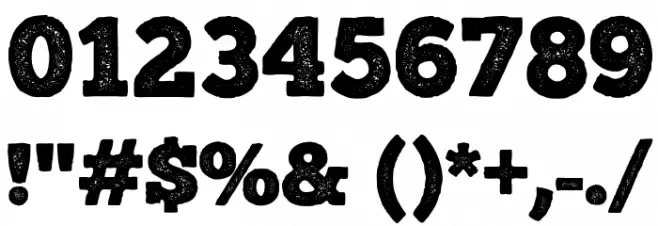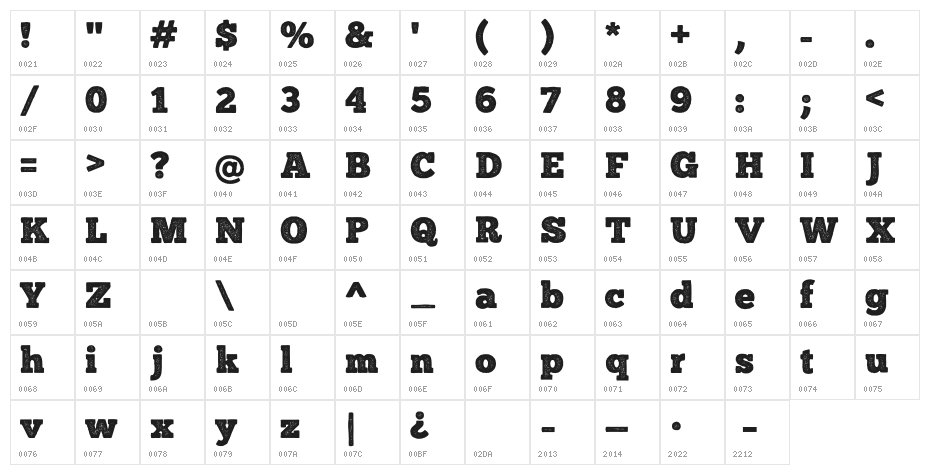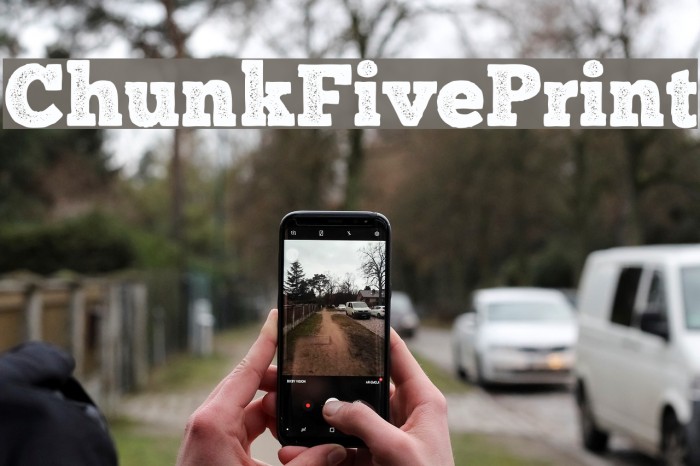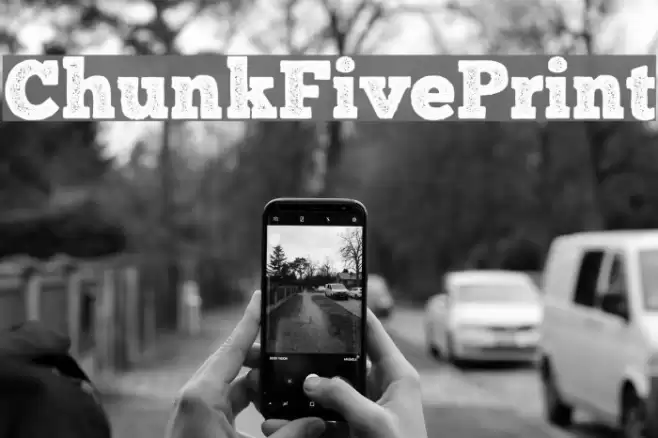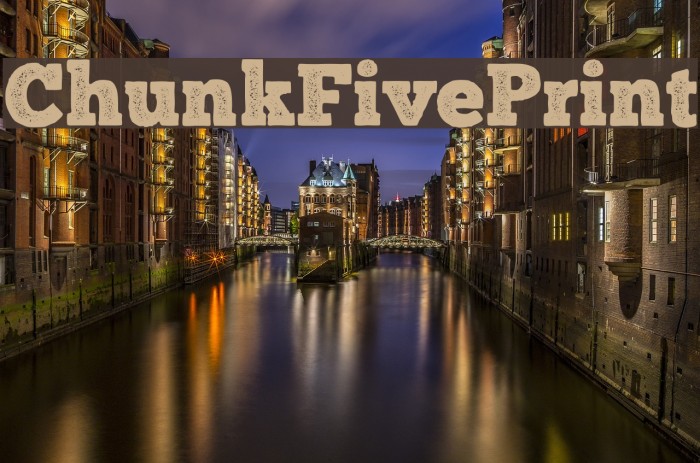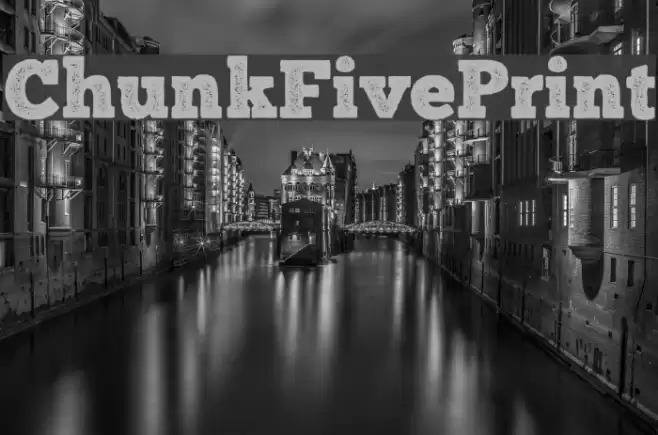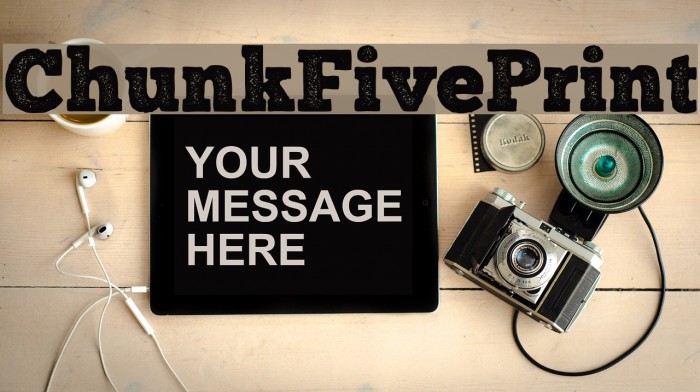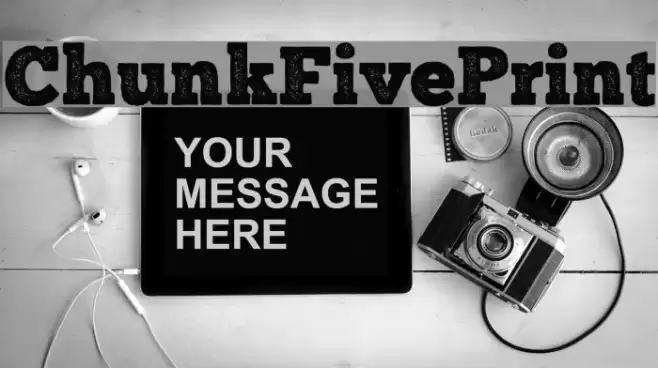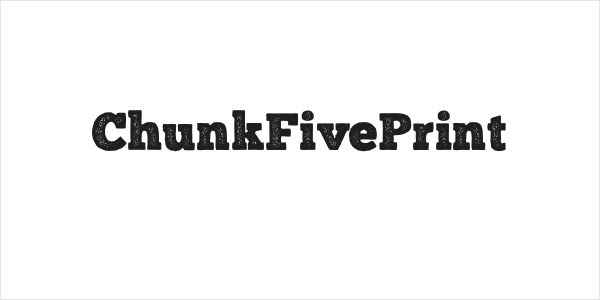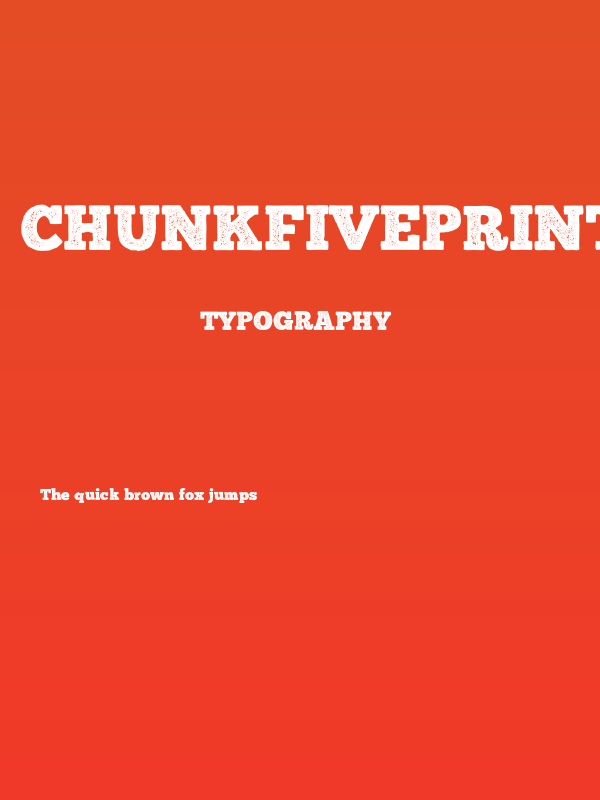
ChunkFivePrint Font
ChunkFivePrint Description
This font features a bold, slab serif style with a distressed, textured appearance that gives it a vintage and rugged feel. The characters are thick and sturdy, with pronounced serifs that add a sense of strength and stability. The distressed texture adds a layer of visual interest, making it suitable for designs that require a rustic or retro aesthetic. The font maintains a consistent weight throughout, ensuring readability while still providing a unique character. Its boldness makes it ideal for attention-grabbing headlines or titles.
| Proposed Projects | Ideal for vintage-themed posters, logos, apparel design, and branding projects that require a bold, rustic look. |